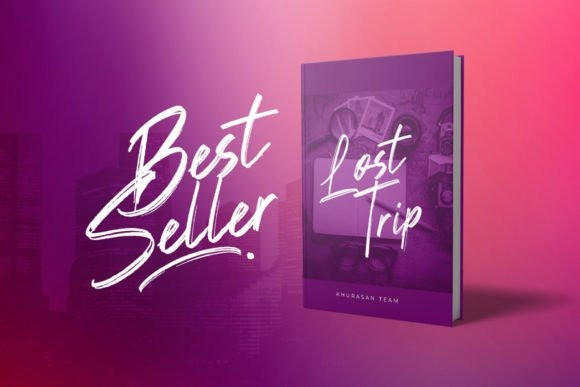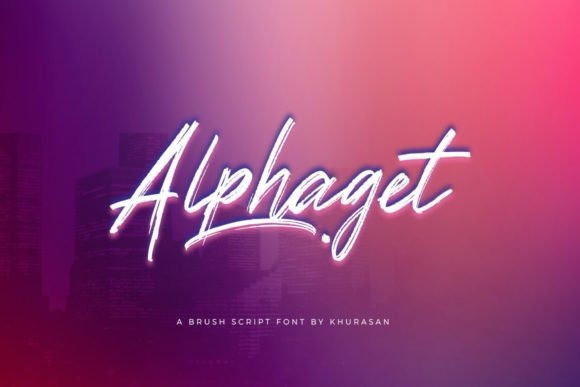
Alphaget Brush Font
Alphaget Brush Font is a modern brush script font perfect for posters, logos, magazines, book covers, banners, and many more! Get this amazing font, and use it to create lovely designs. It can easily be matched to an incredibly large set of projects, so add it to your creative ideas and notice how it makes them stand out!